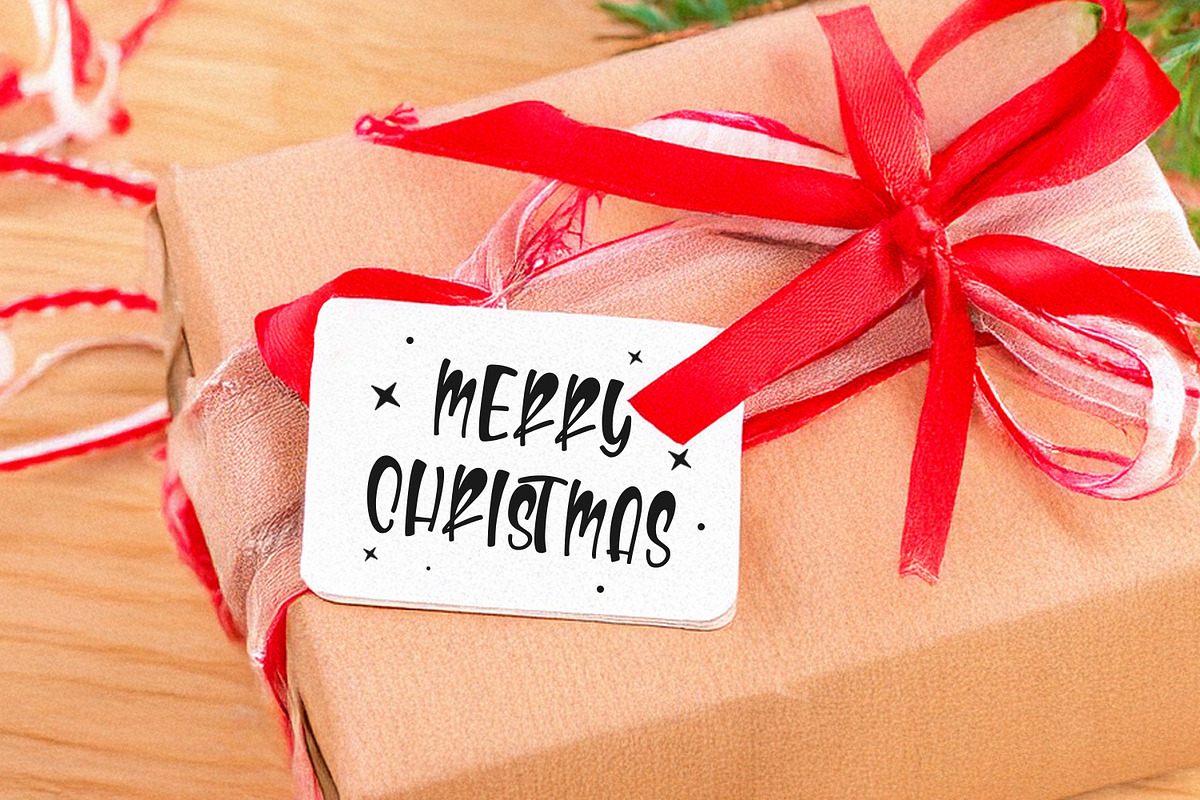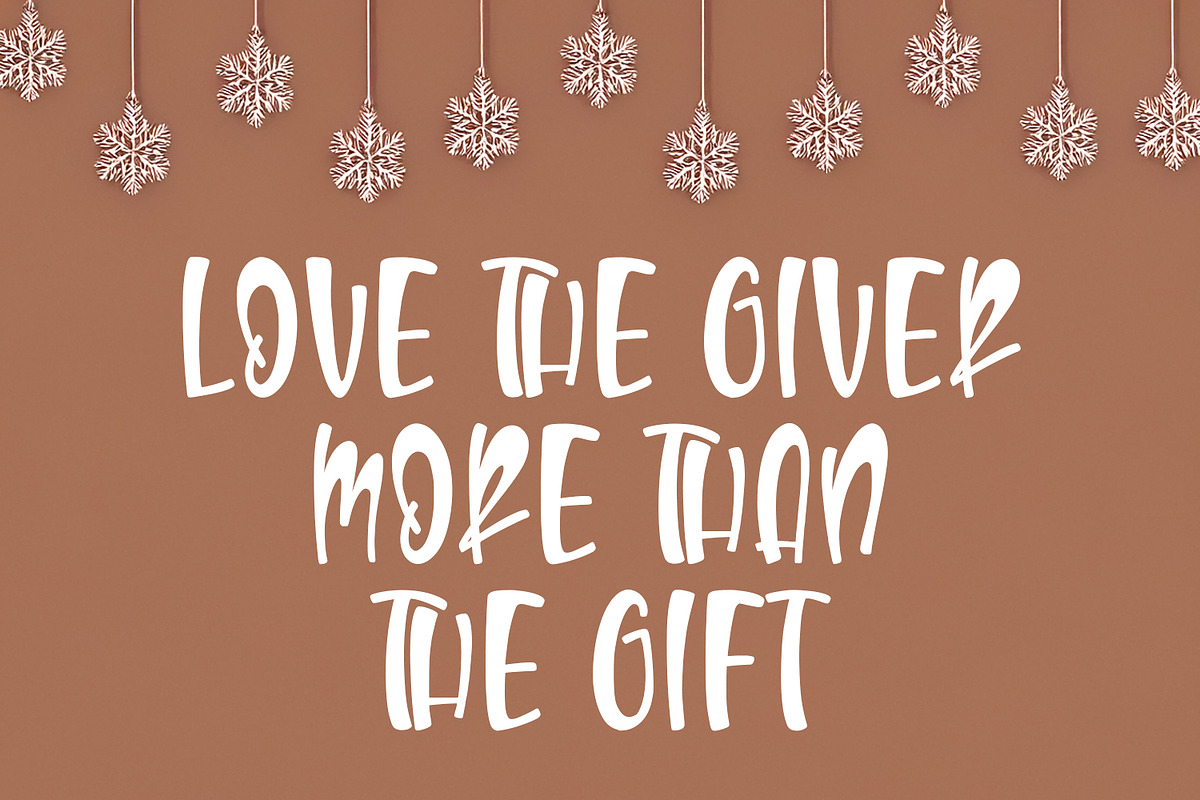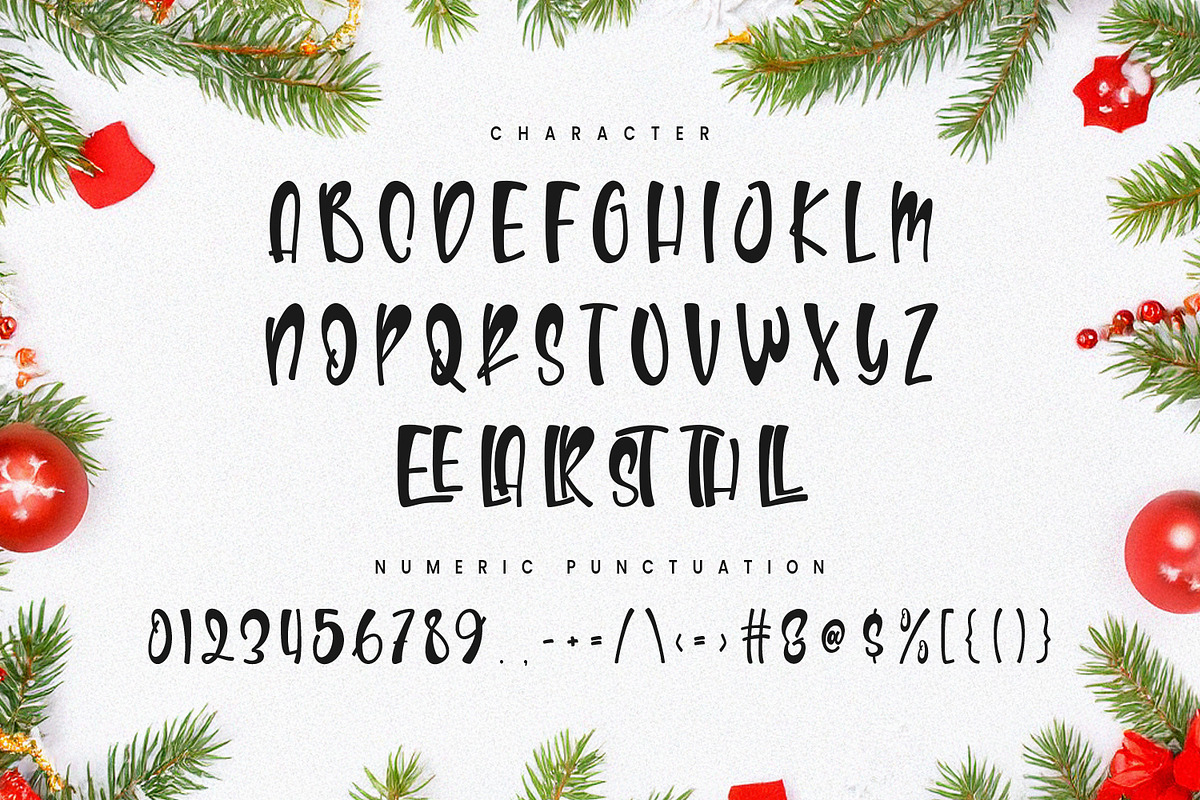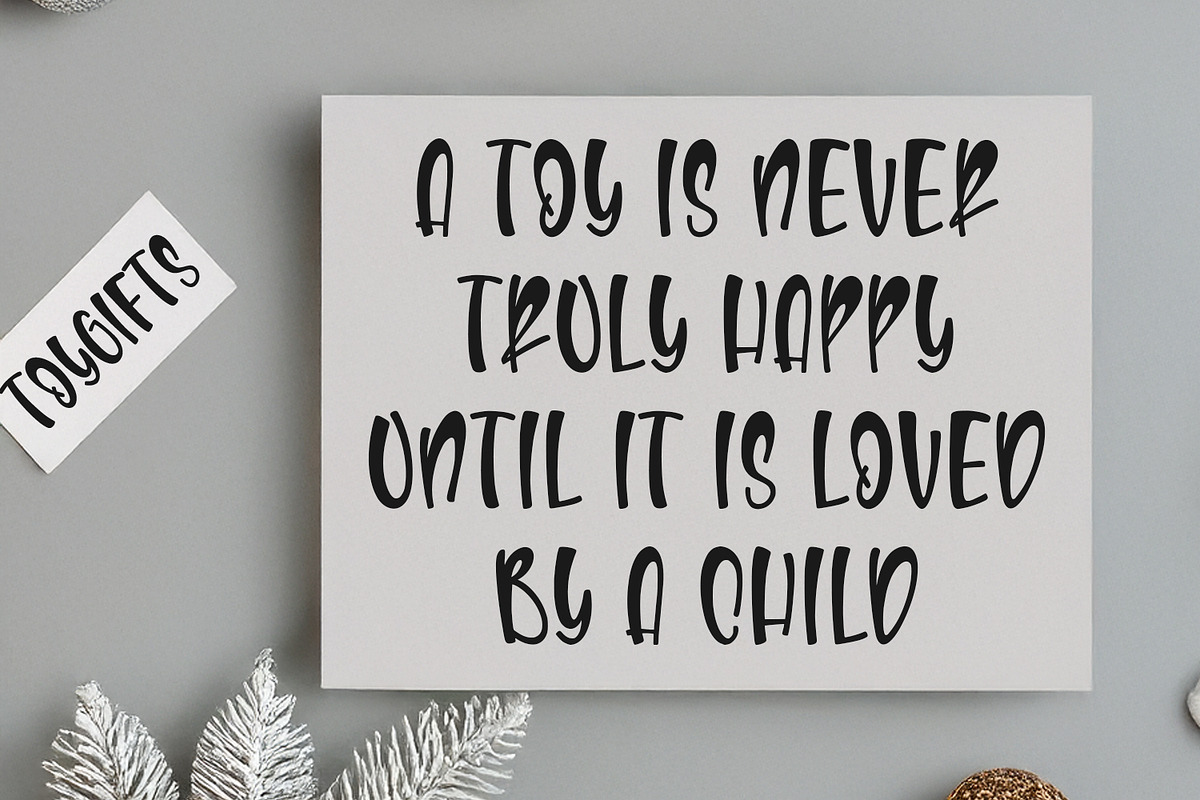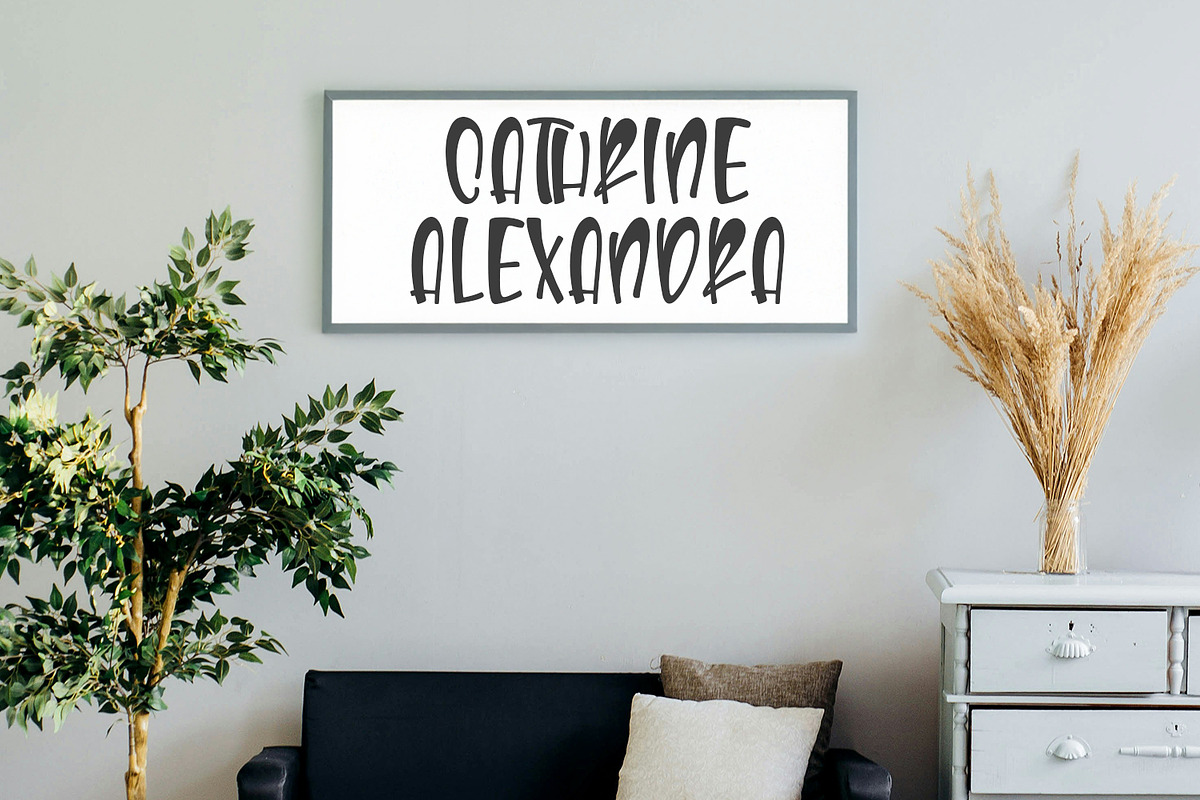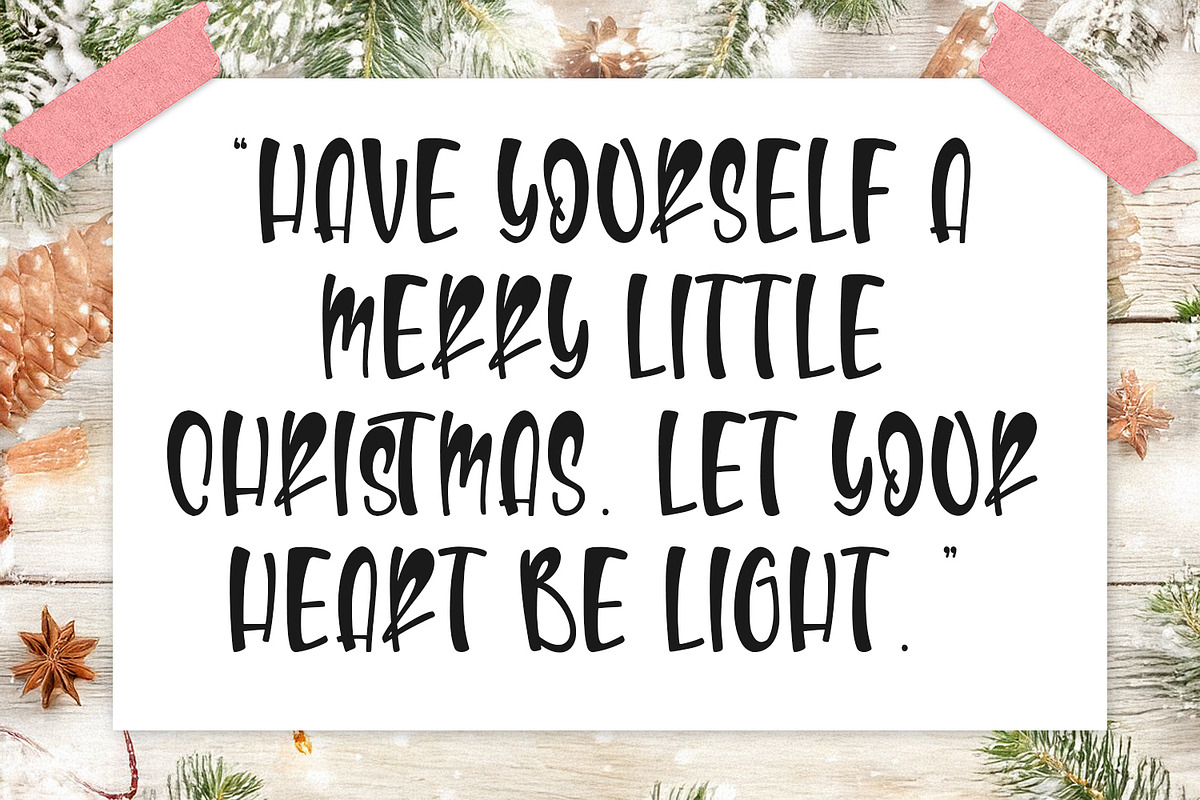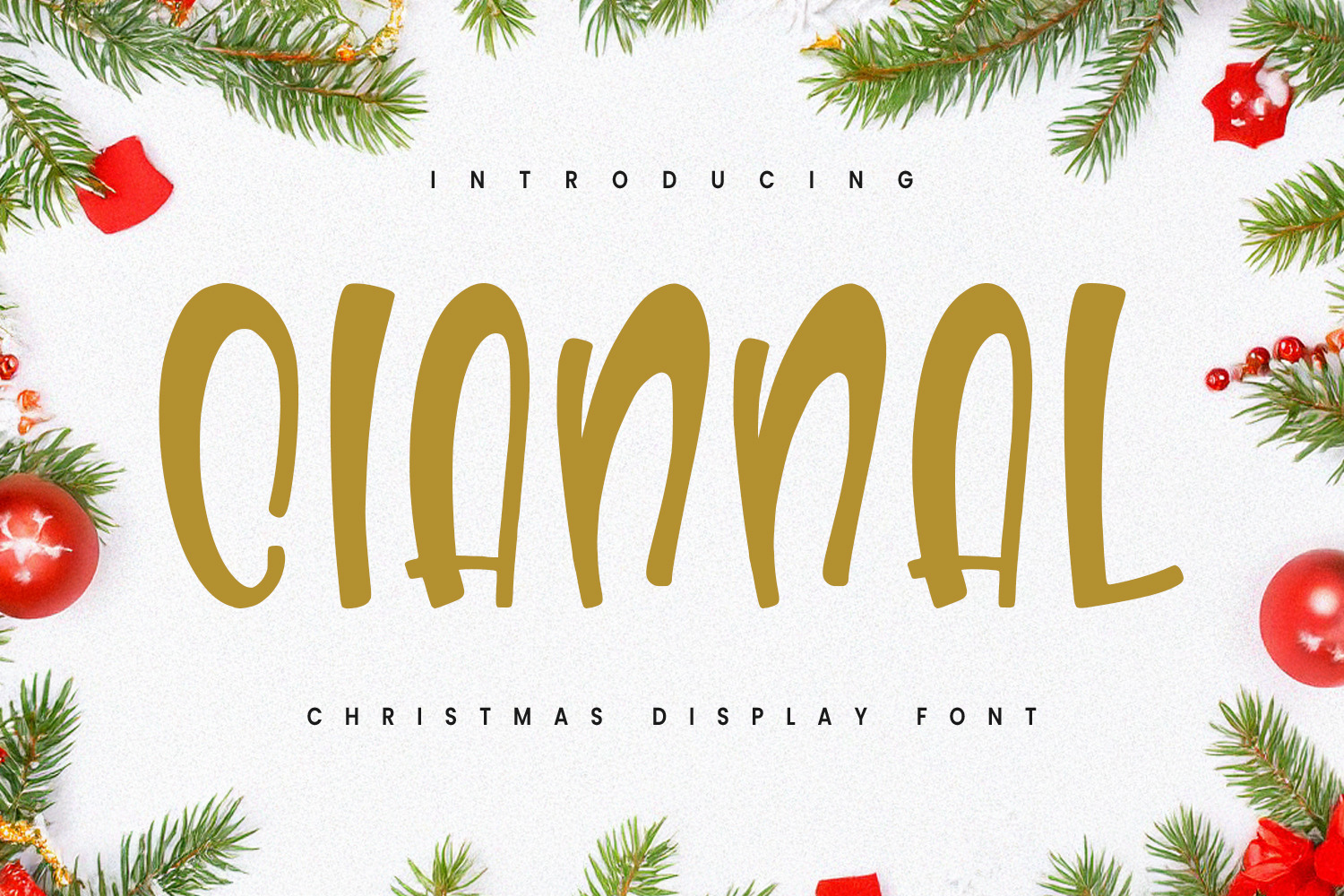
Ciannal Christmas Display Font
Ciannal is a handwritten sans christmas display font. With smooth and handwritten stroke, fun character with a ligatures. To give you an extra creative work Ciannal font support multilingual more than 100+ language. This font is good for logo design, Social media, Movie Titles, Books Titles, a short text even a long text letter and good for your secondary text font with sans or serif. Make a stunning work with Ciannal font.